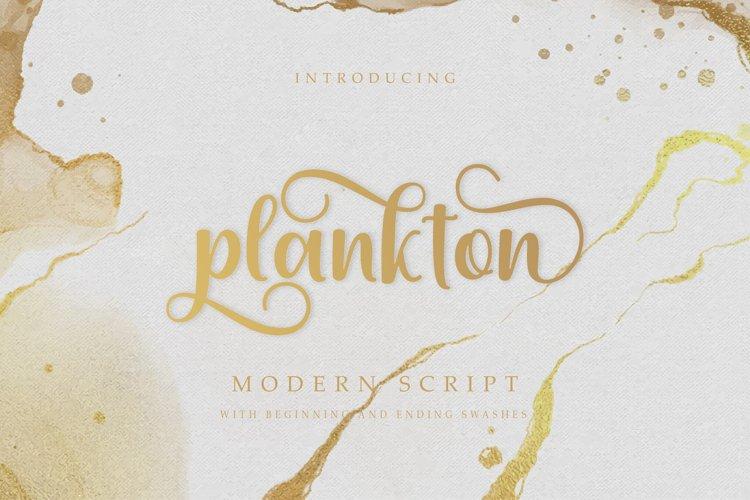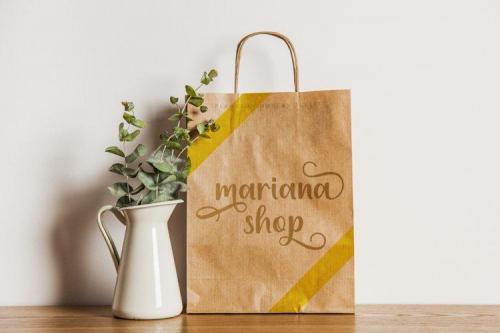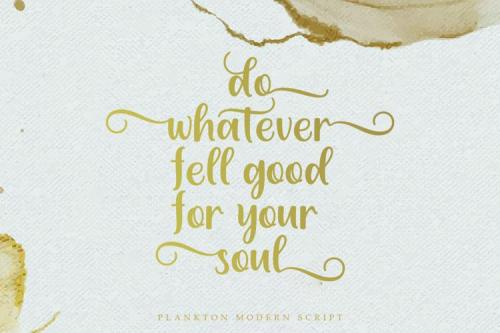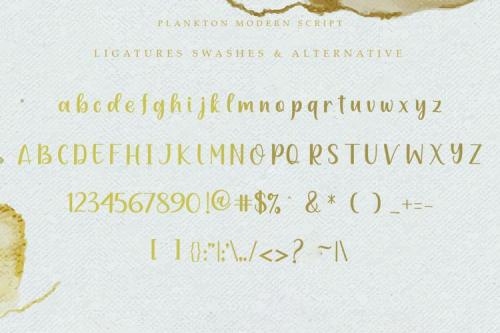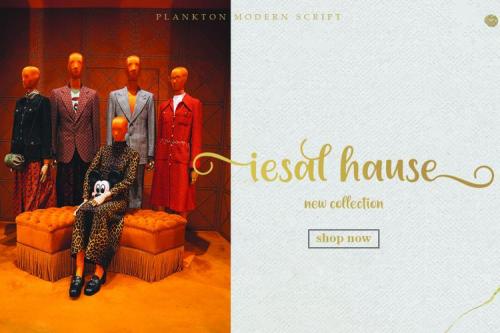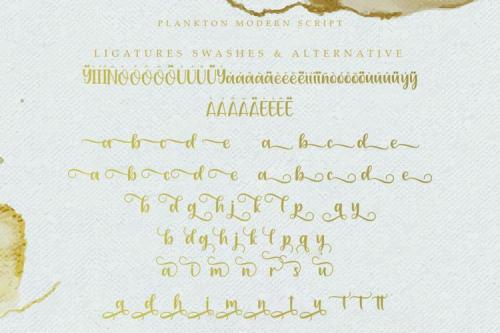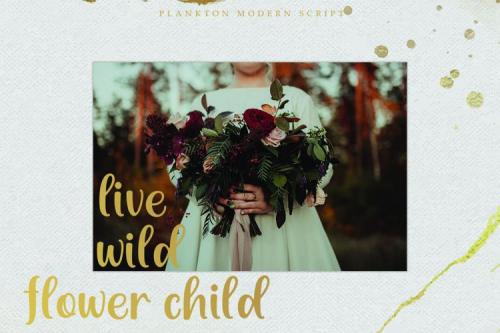
Plankton feels elegant and stylish. This stunning script font is a unique homage to classic calligraphy. Get inspired by its authentic feel and use it to create gorgeous wedding invitations, beautiful stationary art, eye-catching social media posts, and cute greeting cards.
This font is PUA encoded which means you can access all of the amazing glyphs and swashes with ease! It also features a wealth of special features including alternate glyphs and ligatures.